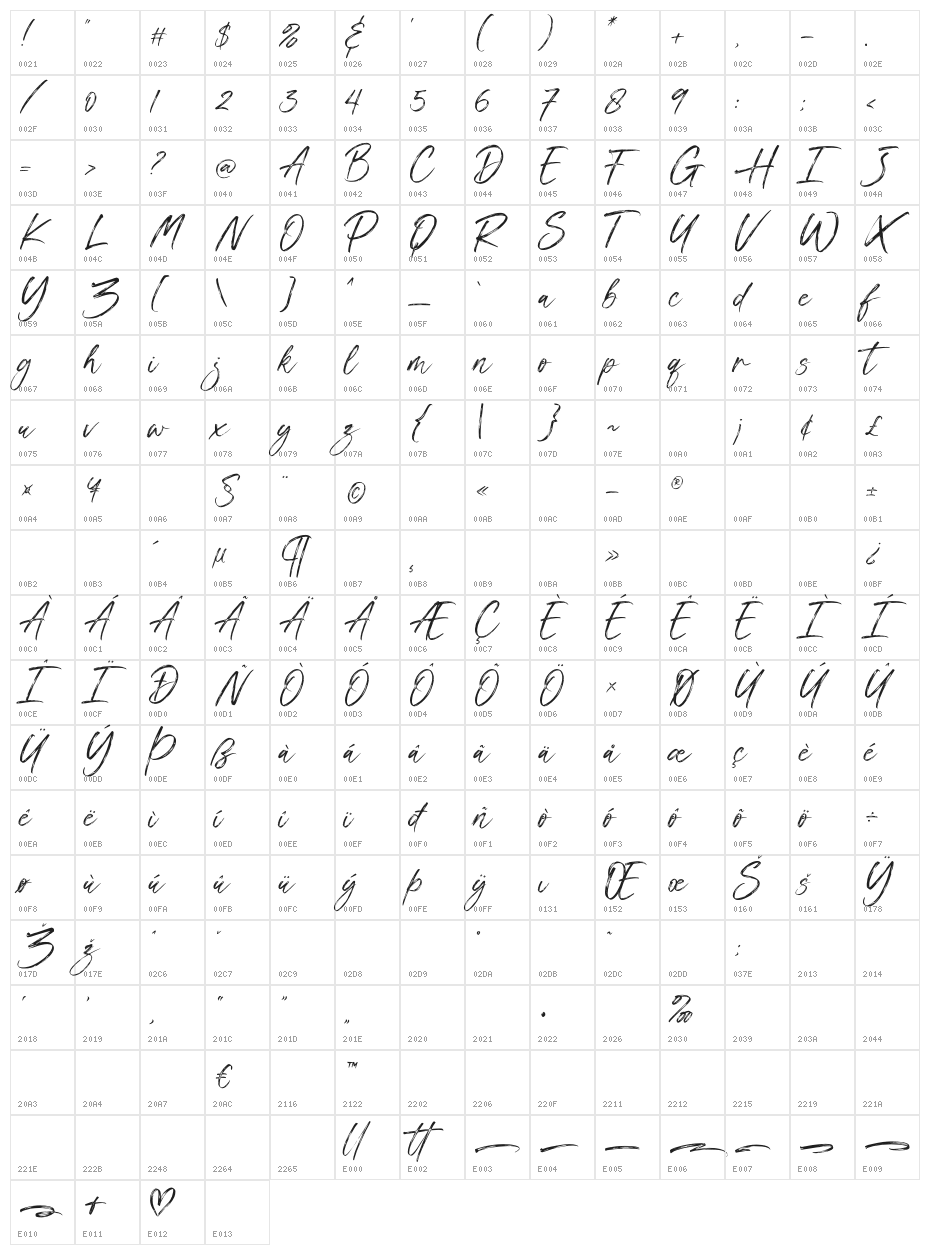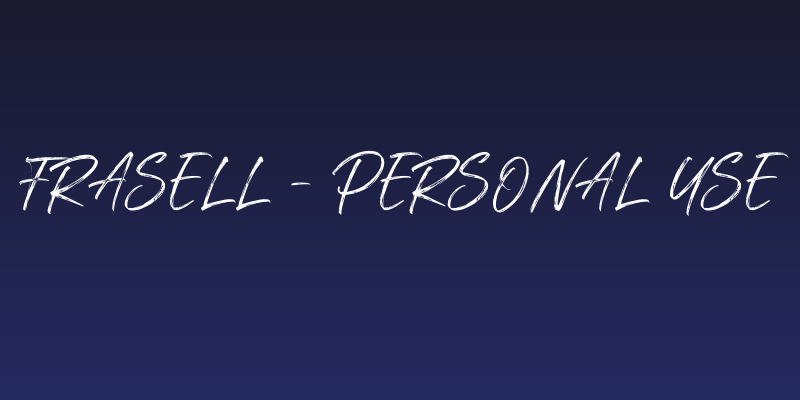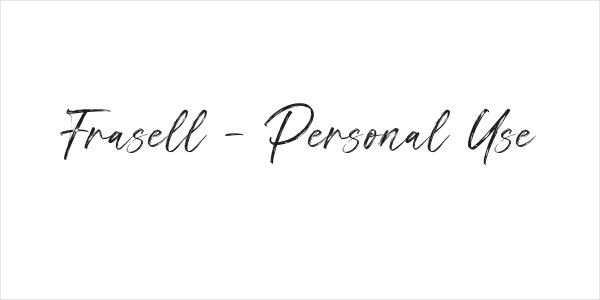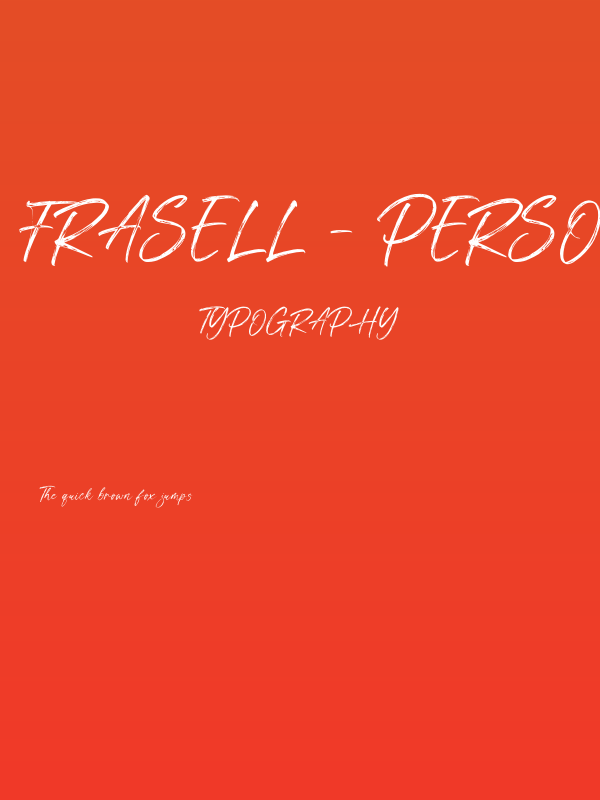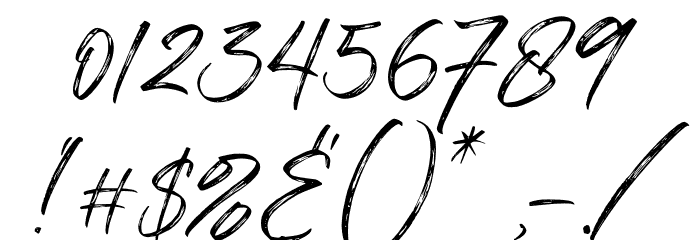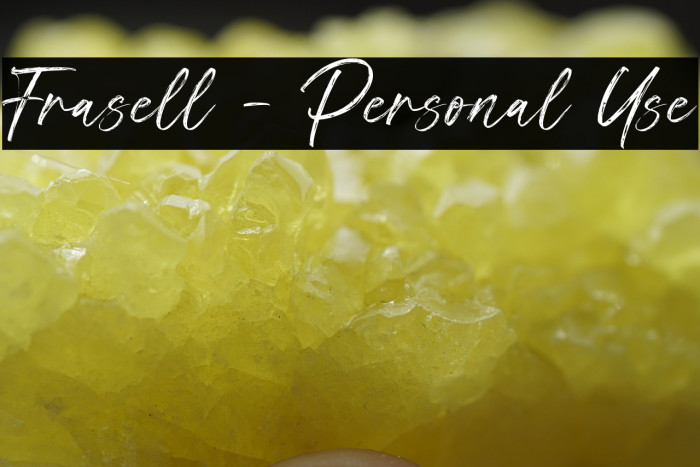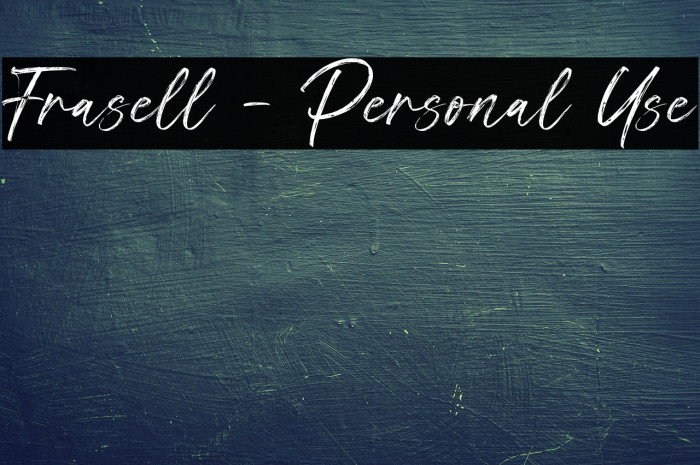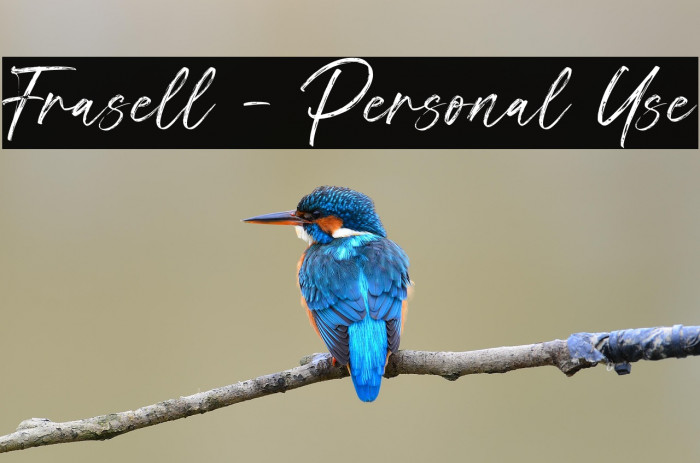
Frasell - Personal Use Font
Frasell - Personal Use Description
This font features a dynamic and expressive handwritten style, characterized by its fluid and cursive letterforms. The strokes are bold and energetic, with a natural flow that mimics authentic handwriting. Each character is crafted with varying thickness, adding a sense of movement and liveliness. The uppercase letters are slightly more structured, while the lowercase letters exhibit a more freeform style. Numbers and special characters maintain the same energetic and artistic quality, making the font versatile for creative projects.